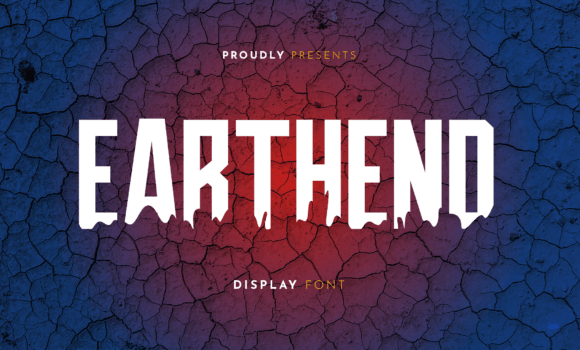
earthend
Earthend Font - Featured Image
Earthend Font – Free Download Introduction to Earthend Font Earthend Display Font is a design font with an elegant style that can enhance the quality of your designs. 📸 Preview Gallery 6 images 📌 Product Name Earthend Font 👤 Author